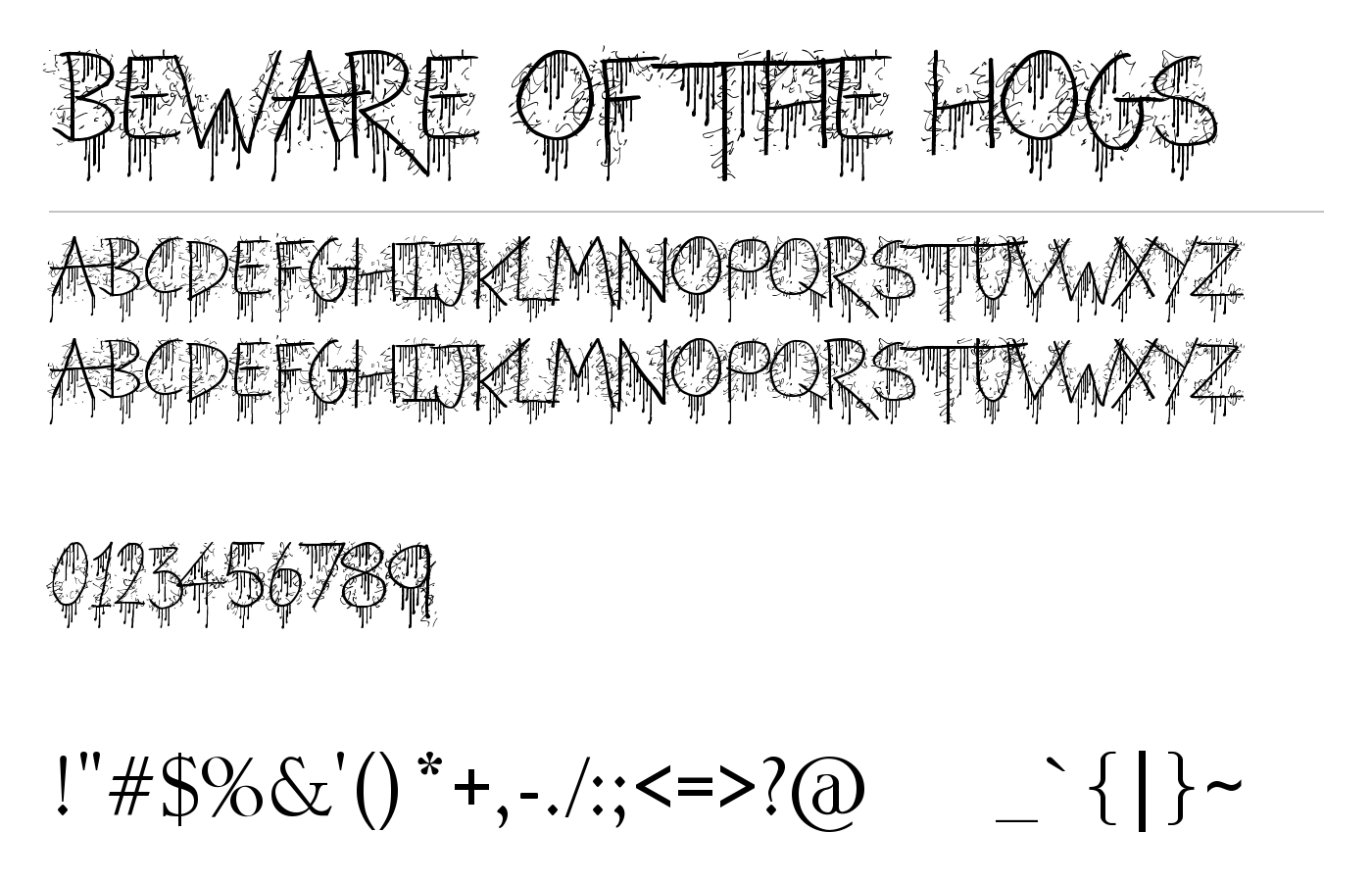
Beware of the Hogs is a decorative, hand-drawn display font with a spooky, rough texture resembling dripping or tangled thorns. Its tall, narrow letterforms and uneven strokes create a chaotic, eerie vibe, perfect for Halloween themes, horror projects, or edgy designs needing a distinctive, unsettling atmosphere. This font works best for headlines, posters, and branding where a bold, dramatic statement is desired rather than for body text.
Beware of the Hogs Font
About Beware of the Hogs Font